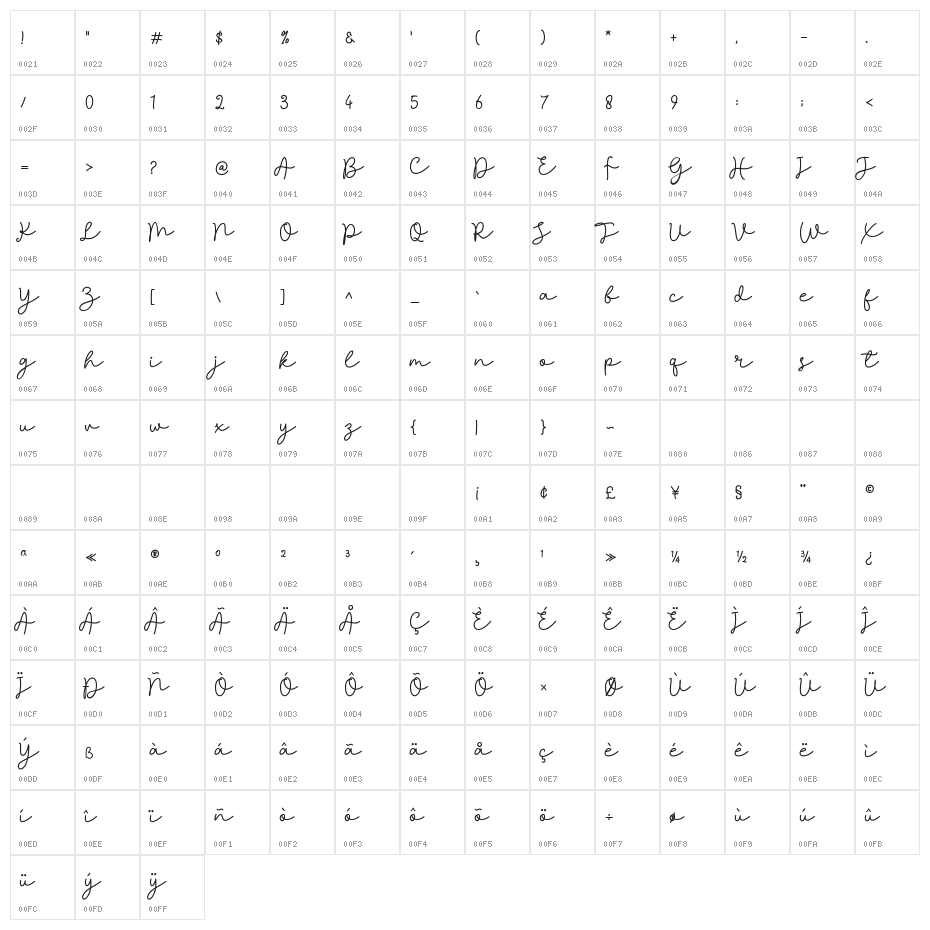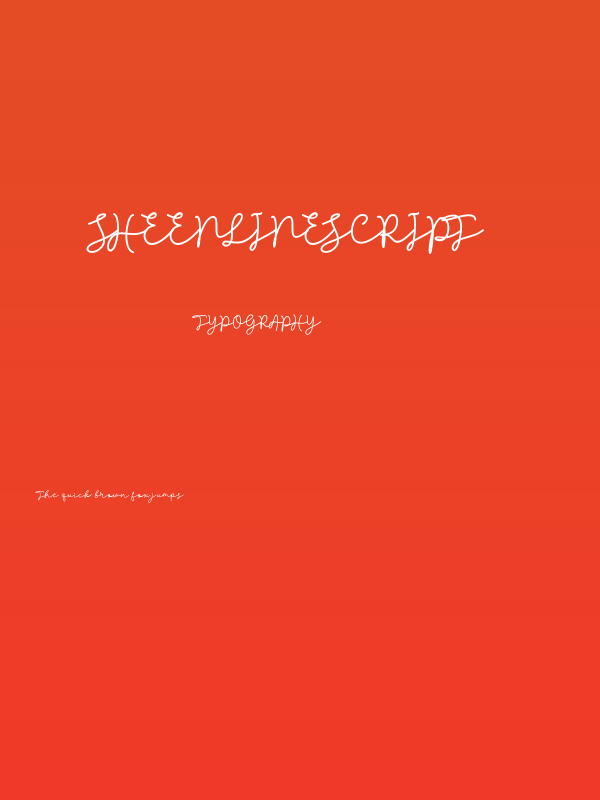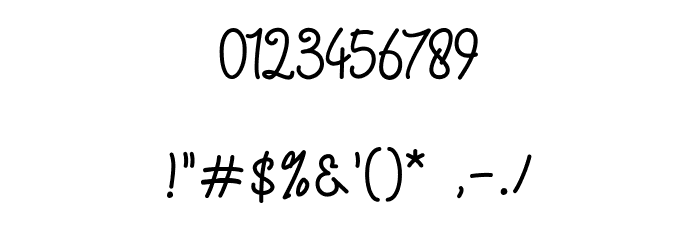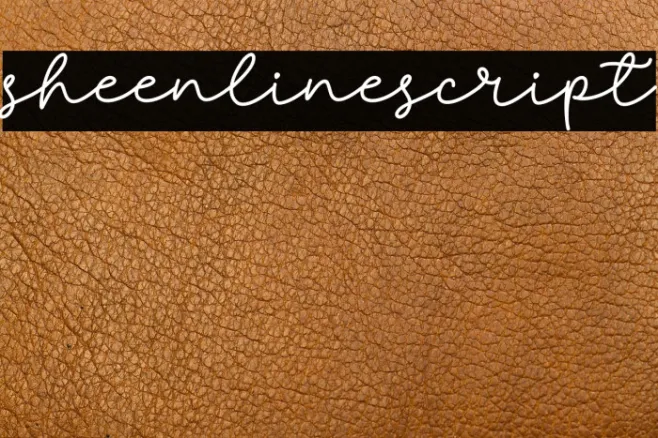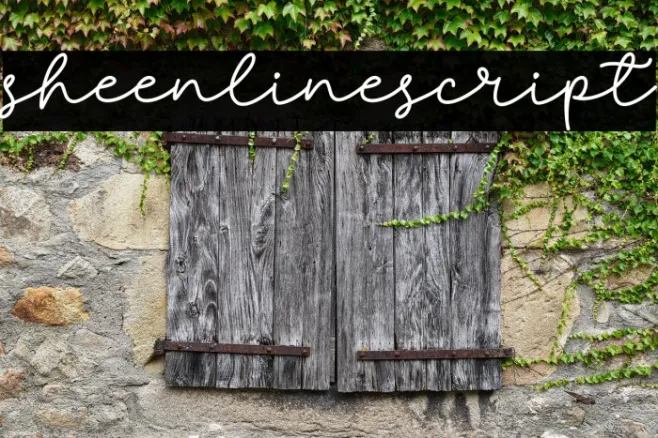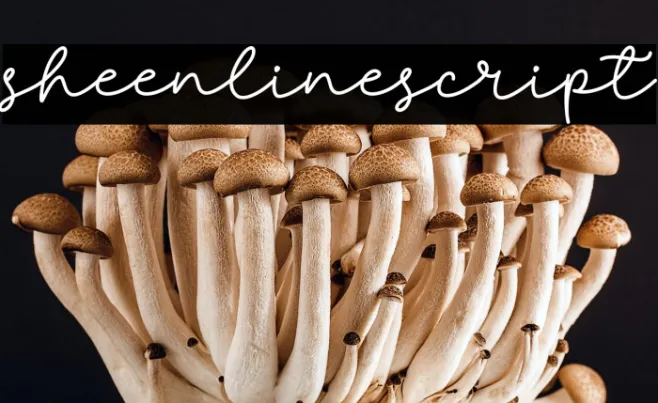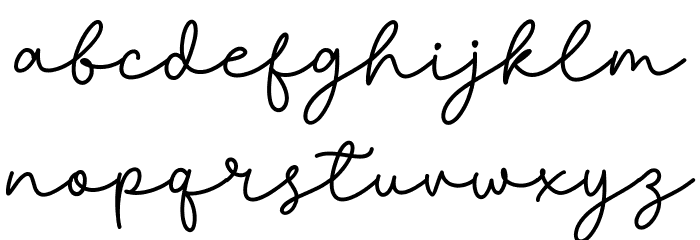
sheenlinescript Font
sheenlinescript Description
This font features a flowing, cursive style that mimics elegant handwriting. The letters are connected, creating a seamless and fluid appearance. The strokes are consistent in thickness, providing a uniform look across all characters. The uppercase letters are slightly larger and more embellished than the lowercase, adding a touch of sophistication. Numbers and special characters maintain the same cursive style, ensuring a cohesive design. The overall aesthetic is graceful and stylish, making it suitable for projects that require a personal or artistic touch.
| Proposed Projects | Ideal for wedding invitations, greeting cards, personal branding, and artistic projects. |